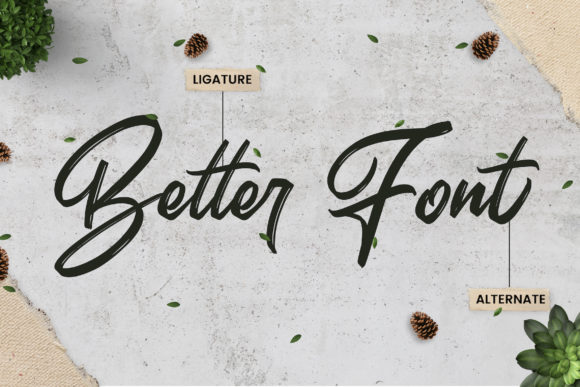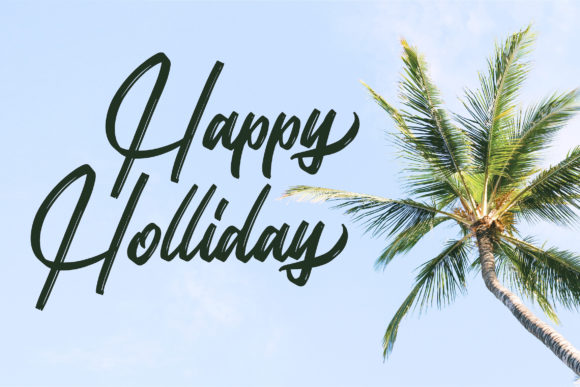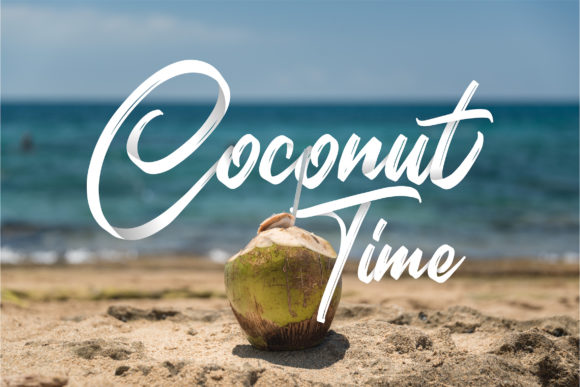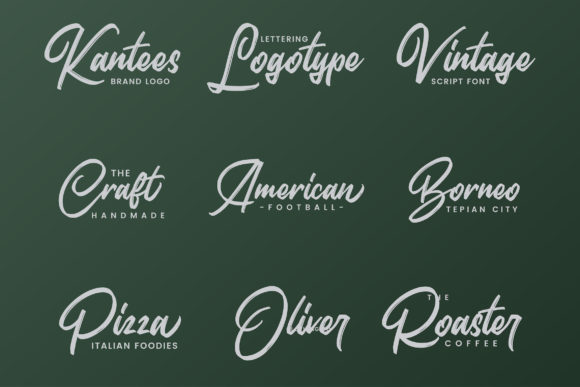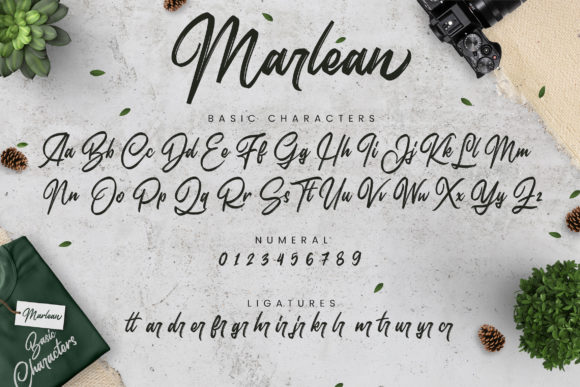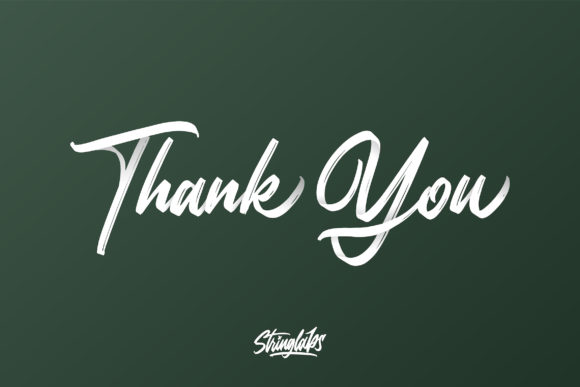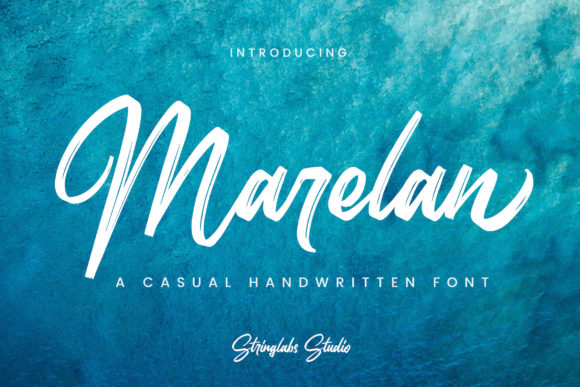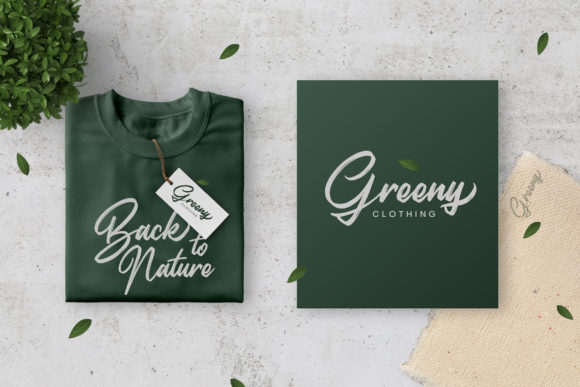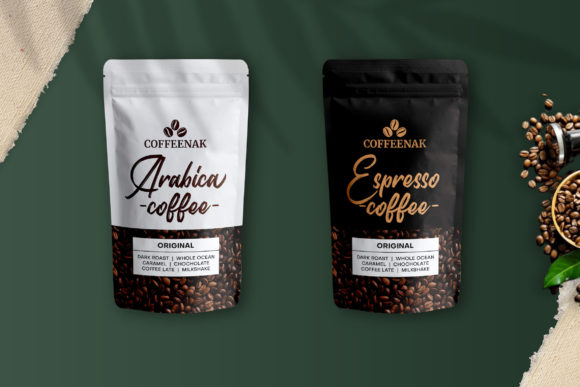
Marelan Font
About Marelan Font
Marelan Script is a modern script font with an irregular baseline. Its trendy and delicate makes Marelan look gorgeous in wedding invitations, thank you cards, quotes, greeting cards, logos, business cards and much more. It also includes stunning alternates, ligatures and multiple language support.